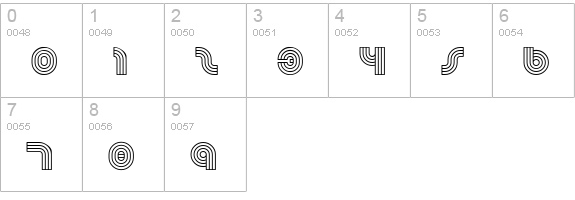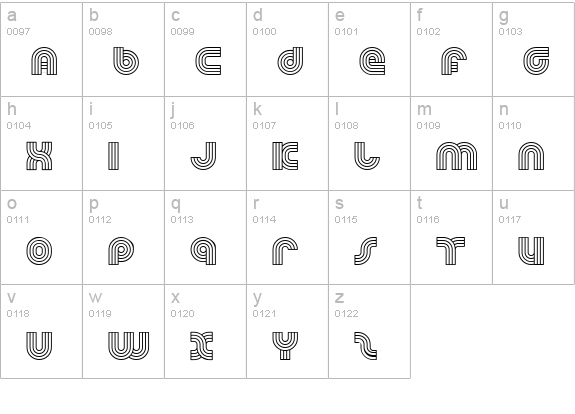
Introducing Dreamland font - a whimsical and enchanting typeface that transports you to a world of imagination and creativity. With its delicate curves and playful design, Dreamland is perfect for adding a touch of magic to your projects. Whether you're working on a children's book, greeting cards, or branding materials, this font will bring a sense of wonder and charm to your designs. Best of all, Dreamland font is available for free download at FontsMarket.com. Yes, you read that right - you can access this captivating font at no cost, making it an ideal choice for budget-conscious designers and creatives. Don't miss out on the opportunity to bring a dreamy quality to your work with Dreamland font - download it today and let your imagination soar!